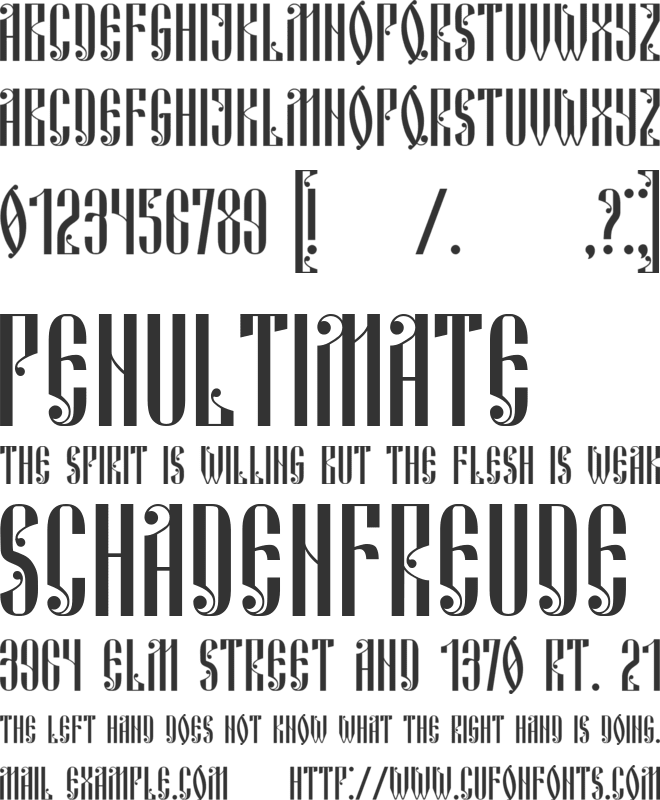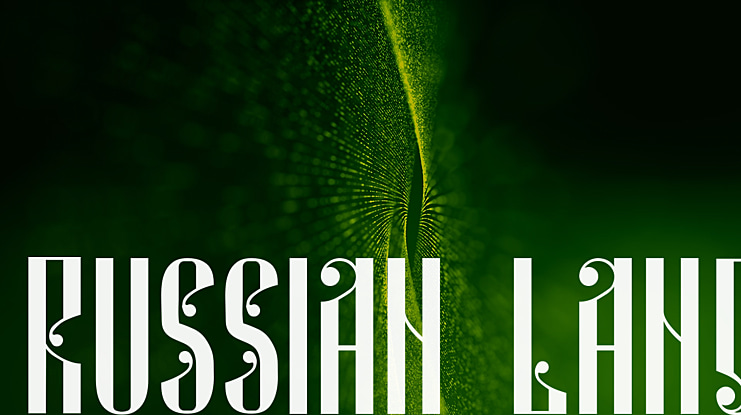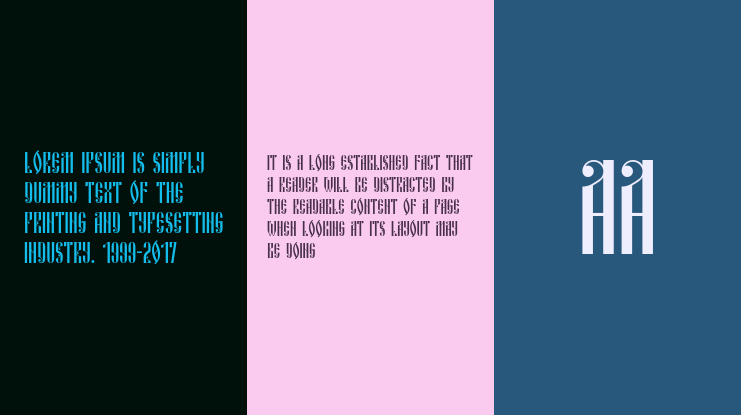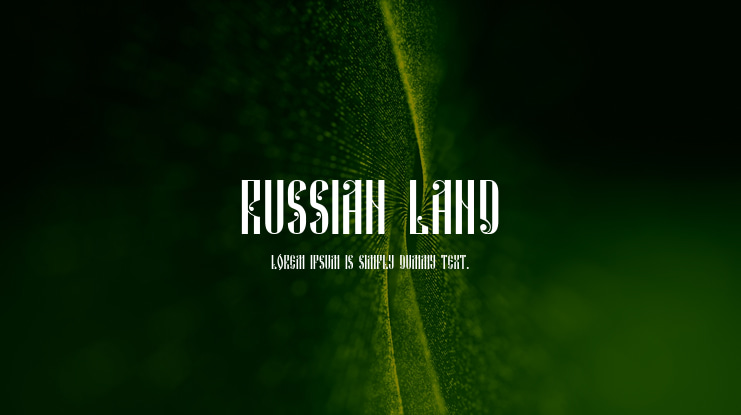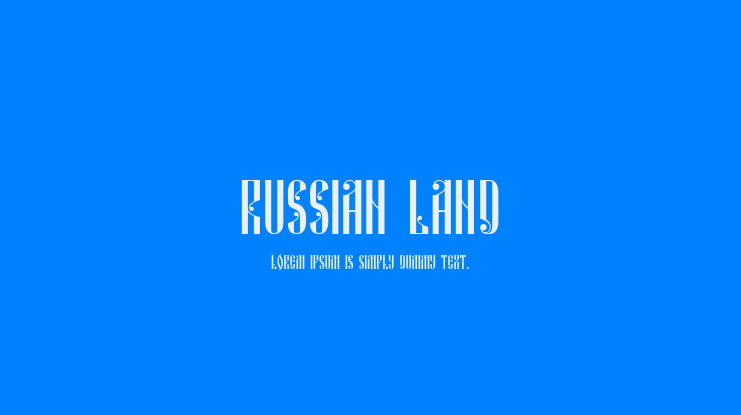
Russian Land Font Family
"Russian Land" is an elegant, yet striking typeface. It comes in three variations: Regular, Shadow, and Old. For commercial use, please order a license here: https://www.creativefabrica.com/product/russian-land/ref/144265/